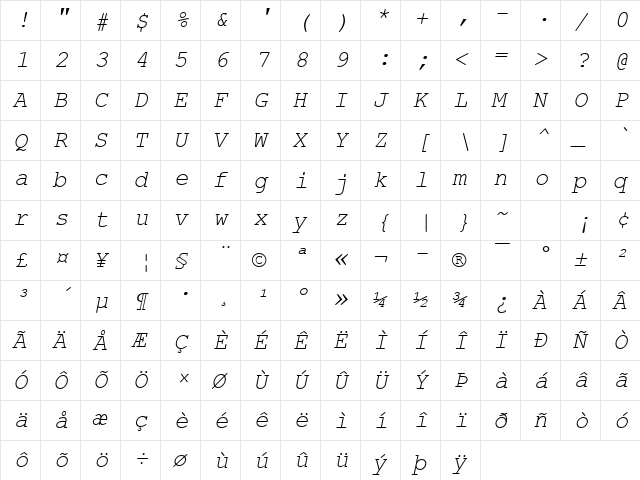
Courier New Italic
| Foundry | Monotype Typography |
| Designer | Howard Kettler |
Design Context for Courier New Typeface
Courier New uses fixed-width spacing throughout, giving it the structured, systematic character associated with coding environments and technical documentation. Its italic angle brings a sense of urgency and motion to the letterforms.
A natural fit for code editors, technical documentation, developer-focused branding, and terminal-inspired UI.
Pro Tip: Pair Courier New with a proportional sans for UI contexts where code-style labels and regular body copy need to coexist.